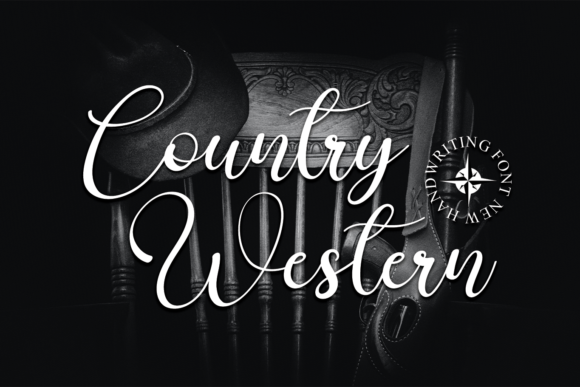
Buckle up for an exhilarating ride into the world of Country Western, a font crafted with the spirit of the Wild West, where every letter exudes confidence, authenticity, and charm. Let your creativity roam free as you harness the power of Country Western to transform your designs into captivating masterpieces. Whether you're crafting heartfelt cards, building a brand with a unique identity, or creating eye-catching labels, Country Western will effortlessly elevate your vision.
Immerse yourself in the world of Country Western, where the script font dances across your screen with the grace of a lone cowboy, leaving a trail of unforgettable impressions. Its elegant curves and captivating strokes embody the essence of the Wild West, evoking a sense of nostalgia and adventure. Country Western possesses the unique ability to transform ordinary words into extraordinary expressions, adding a layer of sophistication to even the simplest of designs.
Unleash the creative possibilities that lie within Country Western, a font that empowers you to communicate your message with impact and authenticity. Its distinctive style demands attention, making it perfect for capturing the hearts of your audience. From rustic wedding invitations that exude warmth and charm to bold posters that command attention, Country Western will effortlessly amplify your voice and ensure your message is heard loud and clear.
With Country Western by your side, you'll discover a world of crafting possibilities limited only by your imagination. Personalize your belongings with hand-lettered designs, adding a touch of individuality to everything you own. Create stunning social media posts that captivate your followers, leaving them yearning for more. The possibilities are endless, waiting for you to unlock them with the power of Country Western.
Join the ranks of creative visionaries who have embraced Country Western as their font of choice. Let their stories inspire you as you embark on your own creative journey, crafting designs that speak to the soul and leave a lasting impression. With Country Western as your guide, you'll discover a world of boundless creativity where anything is possible.